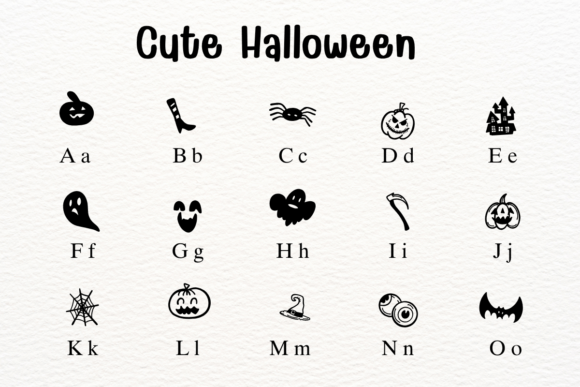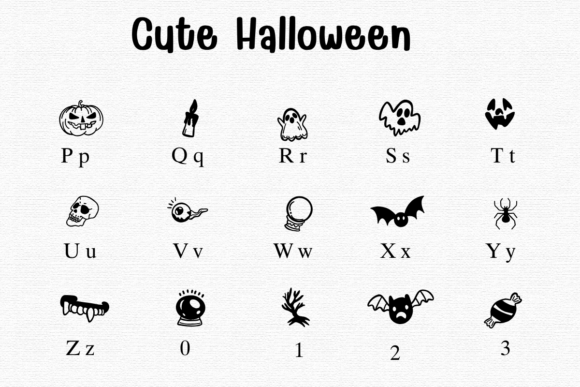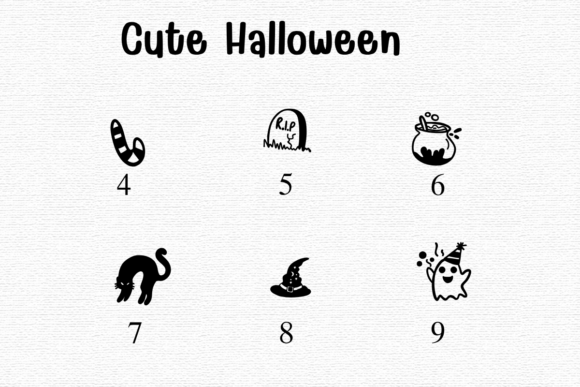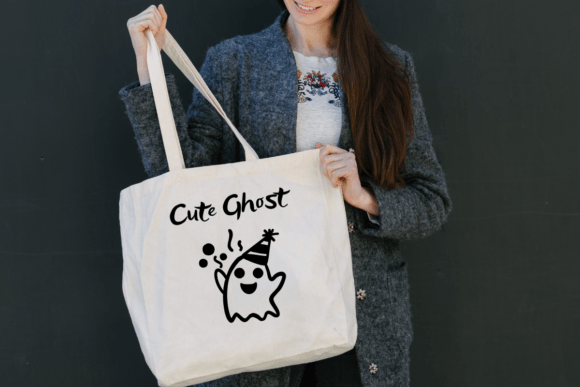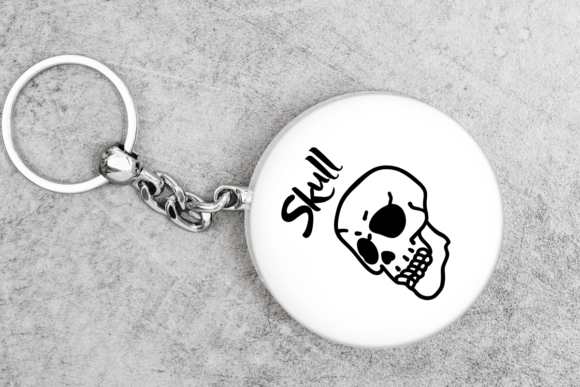
Spooky Season is Here: Bring the Magic with Cute Halloween Font
As the leaves start to change and the air gets crisp, you know it’s almost time to break out the cobwebs and get creative with your designs. For designers, Halloween is the perfect opportunity to get spooky and have some fun with typography. And what’s more fun than a font that screams ‘boo’ with its adorable and eerie characters?
Meet Cute Halloween Font, a dingbats font that’s sure to cast a spell on your audience. This versatile font is perfect for websites, stickers, invitations, cards, and so much more. Its playful and whimsical design makes it a valuable asset for designers looking to add a touch of Halloween magic to their projects.
Cute Halloween Font Key Features
- Font Family: A collection of spooky and cute Halloween-themed fonts, including ‘Cute Halloween’, ‘Monster’, ‘Ghostly’, ‘Pumpkin’, and more.
- Unique Characteristics: Each font has its own unique design, with features like hand-drawn illustrations, bold lines, and playful textures, adding a touch of whimsy to any design project.
Cute Halloween Font Review
I recently had the chance to work with the Cute Halloween Font, and here’s my honest take on it.
- The font has a playful and festive vibe that’s perfect for Halloween-themed projects.
- The font is highly customizable, allowing you to adjust the size, color, and style to fit your needs.
- The characters are well-designed and have a nice, rounded feel to them.
- The font is not as versatile as some other fonts I’ve worked with, and it may not be suitable for all types of projects.
- The font lacks a bold weight, which can make it difficult to read in certain situations.
Overall, I think the Cute Halloween Font is a solid choice for Halloween-themed projects, but it may not be the best option for more general use. With a bit of customization and creativity, you can create some really fun and spooky designs with this font.
Some tips for getting the most out of Cute Halloween Font include:
1. Use it for titles and headings to add a playful touch.
2. Pair it with bold, bright colors to create a festive atmosphere.
3. Use it for invitations, party decorations, and other Halloween-themed projects.